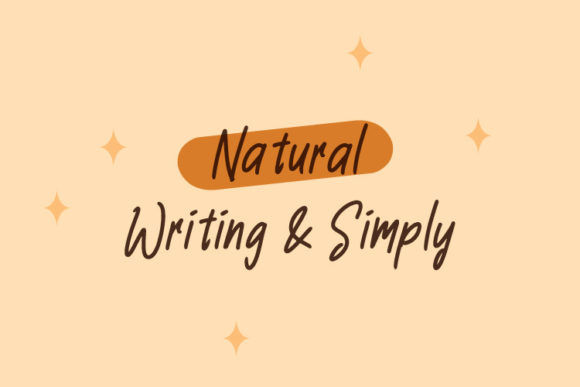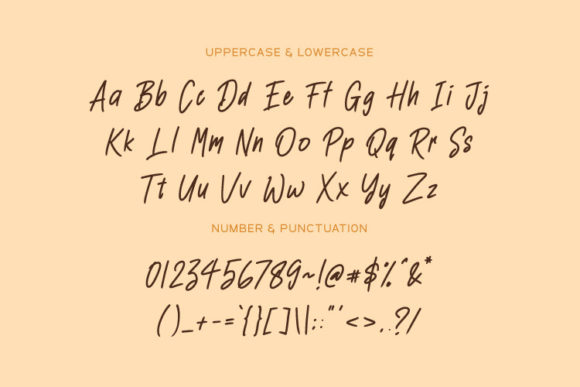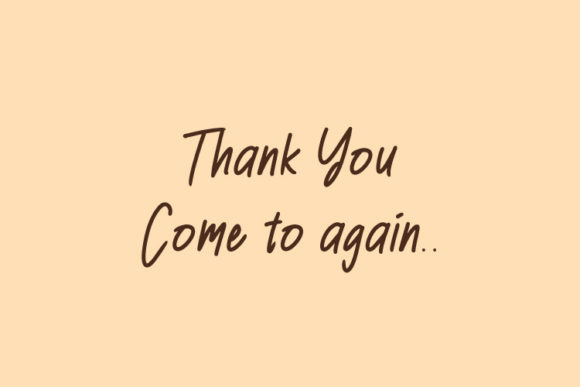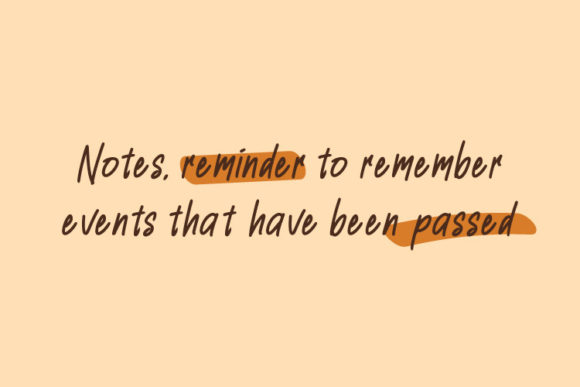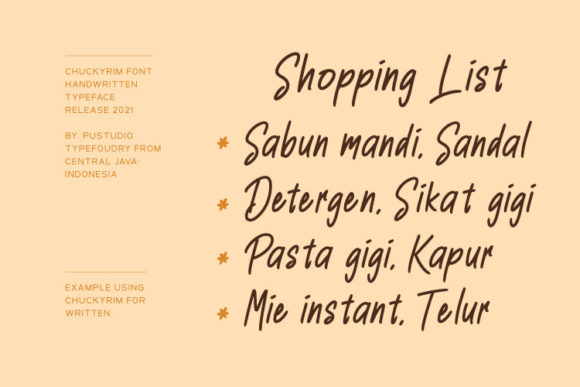
Chuckyrim Font
About Chuckyrim Font
Chuckyrim is a fresh, casual, and relaxed handwritten font. It is perfect for poster designs, book covers, merchandise, fashion campaigns, newsletters, advertising, magazines, greeting cards, album covers, and more!